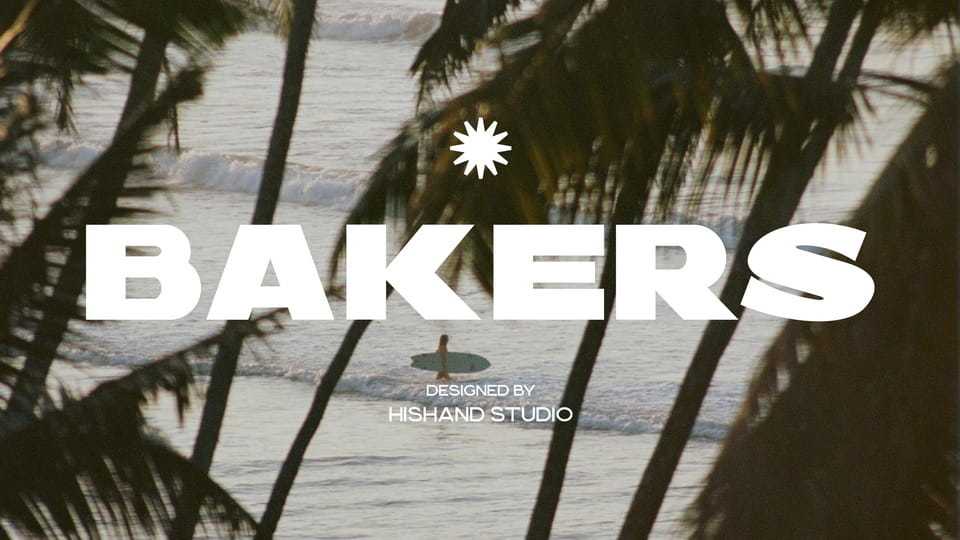
Download Bakers font, a bold display sans serif typeface designed with clean structure and strong visual impact. Its wide letterforms, sharp angles, and confident proportions give it a modern yet timeless character.